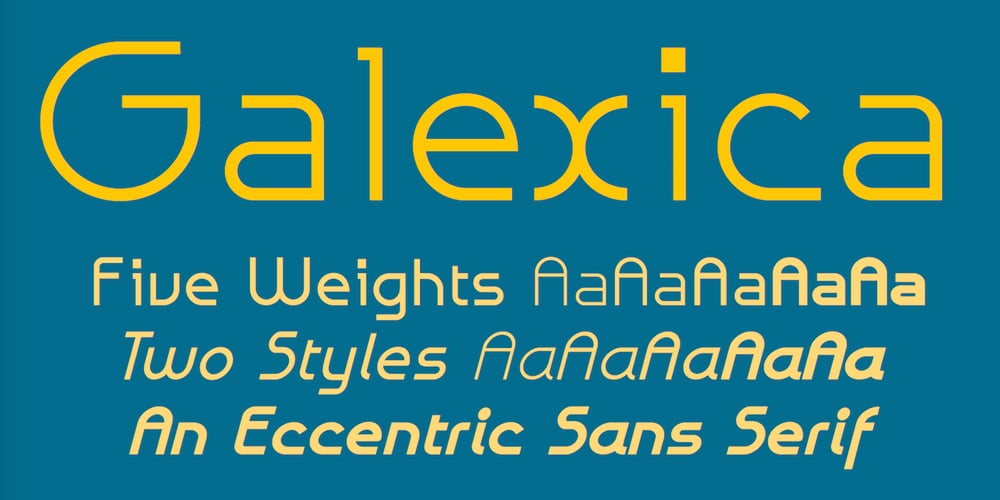
Galexica Font Family was designed by Robert Schenk and published by Ingrimayne Type. Galexica contains 10 styles and family package options. Galexica is a geometric, modernistic, sans-serif typeface. The original family had five members, but an upgrade in 2019 expanded that to ten, with five weights and italics for each of those weights. The eccentric letter forms have a techno or futuristic look. There is also a monospaced version of this design,